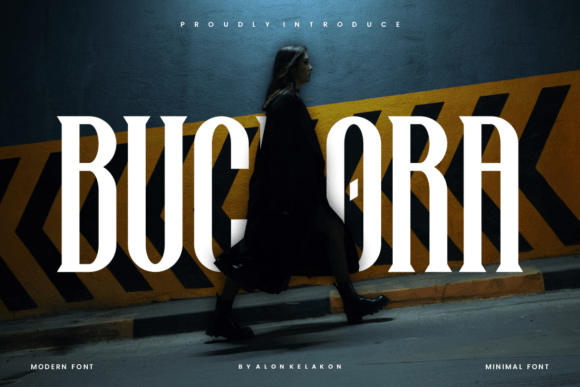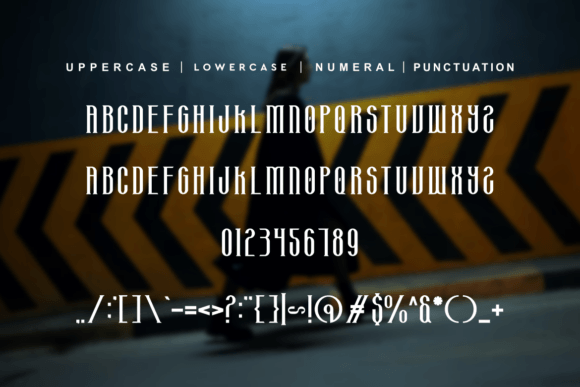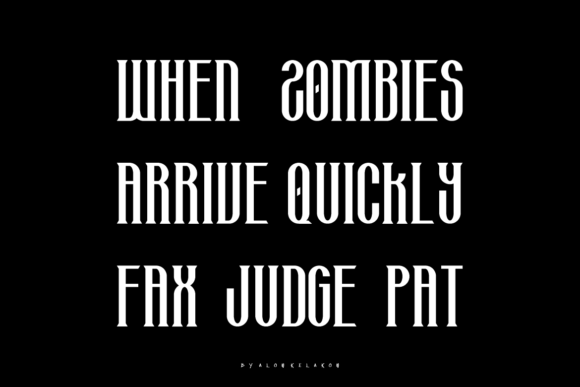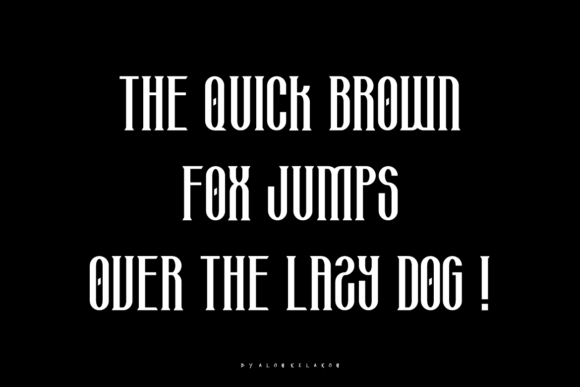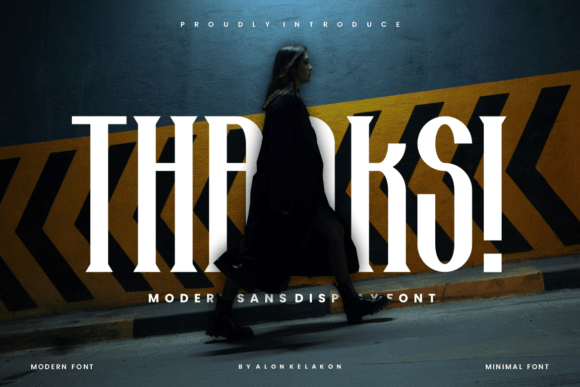
Introducing Buckora Font: Elevate Your Creativity with this Unique Sans Display Font
Are you tired of using the same old fonts for your creative projects? Look no further than Buckora Font, an incredibly unique sans display font that is sure to become a true favorite among designers and crafters. Masterfully designed to bring each of your creative ideas to the highest level, Buckora Font is the perfect addition to your font collection.
What Makes Buckora Font So Special?
Buckora Font is not just another font – it’s a game-changer. Its unique sans display design sets it apart from other fonts, making it perfect for headlines, titles, and other creative projects where you want to make a statement. The font’s clean lines, precise curves, and exceptional kerning make it easy to read and visually appealing.
Key Features of Buckora Font
- Unique Sans Display Design: Buckora Font boasts a distinctive sans display design that is sure to grab attention.
- Exceptional Kerning: The font’s kerning is carefully crafted to ensure that your text looks professional and polished.
- Clean Lines and Precise Curves: Buckora Font’s clean lines and precise curves make it easy to read and visually appealing.
- Multilingual Support: The font supports multiple languages, making it perfect for global projects.
Why Designers and Crafters Love Buckora Font
Buckora Font is a favorite among designers and crafters for several reasons. Firstly, its unique design allows them to add a personal touch to their projects. Secondly, the font’s exceptional kerning and clean lines make it easy to read, even at small sizes. Finally, Buckora Font’s versatility makes it suitable for a wide range of projects, from branding and advertising to crafting and DIY.
How to Use Buckora Font in Your Projects
- Branding and Advertising: Use Buckora Font to create eye-catching logos, billboards, and ad campaigns.
- Crafting and DIY: Add a personal touch to your crafting and DIY projects with Buckora Font.
- Web Design: Use Buckora Font to create stunning website headers, titles, and other design elements.
Tips and Tricks for Getting the Most Out of Buckora Font
Here are a few tips and tricks to help you get the most out of Buckora Font:
- Experiment with Different Sizes: Buckora Font looks great at large and small sizes, so don’t be afraid to experiment.
- Combine with Other Fonts: Pair Buckora Font with other fonts to create stunning contrast and visual interest.
- Use in Combination with Images: Use Buckora Font in combination with images to create visually appealing graphics.